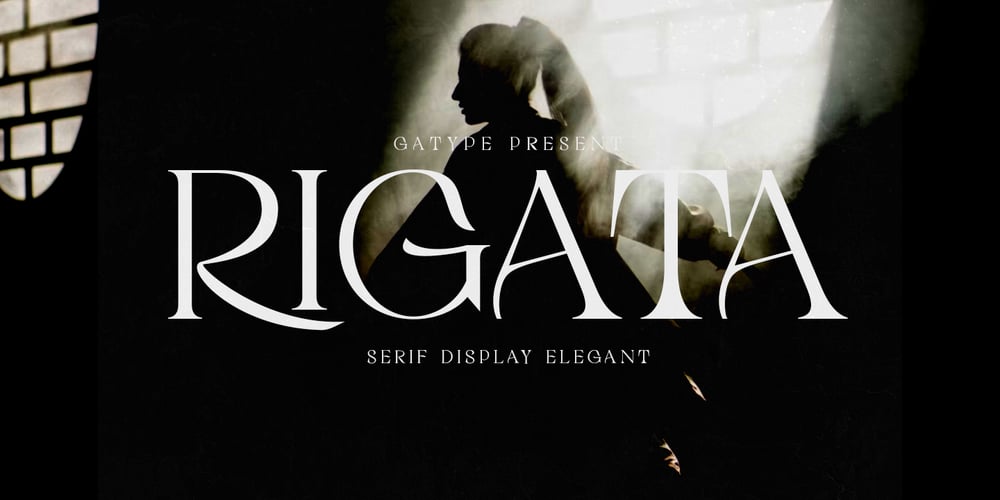
Rigata
Rigata font
Rigata Font Family was designed by khaidir and published by Gatype. Rigata contains 1 styles and family package options. The newest Rigata Serif is elegant and luxurious perfect for invitations, logos, branding, greetings, social media themes and wedding invitation designs. It is also a great typeface for titles because of its smooth design and attractive appearance.If you have any questions please feel free to contact me!Thank You,